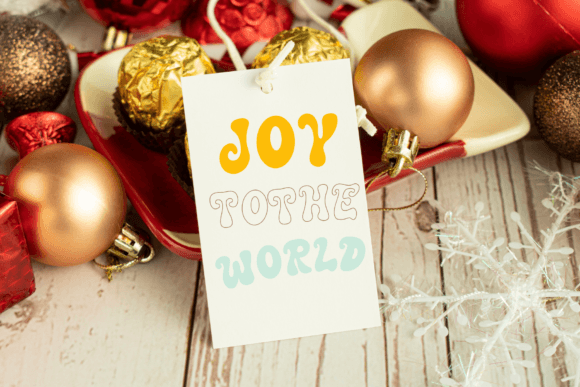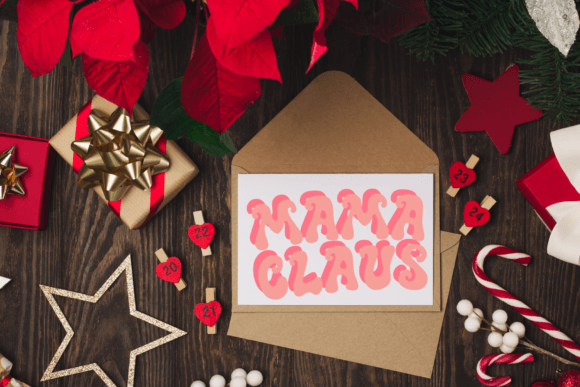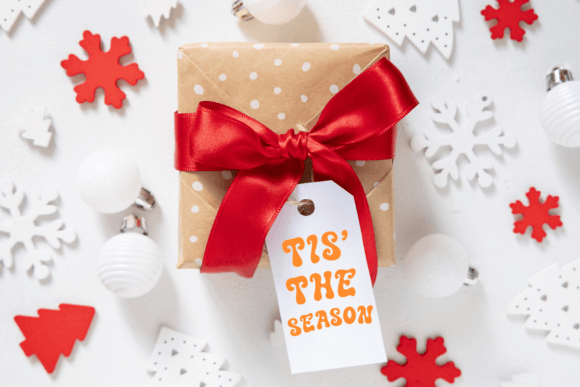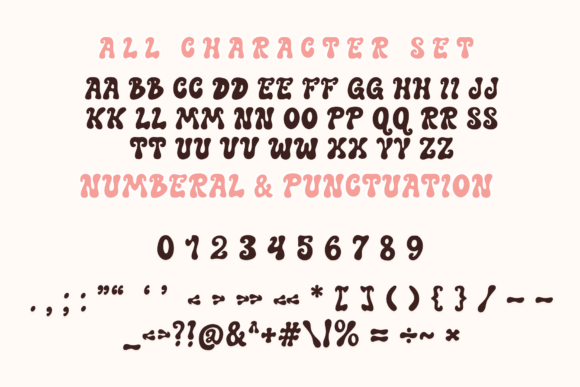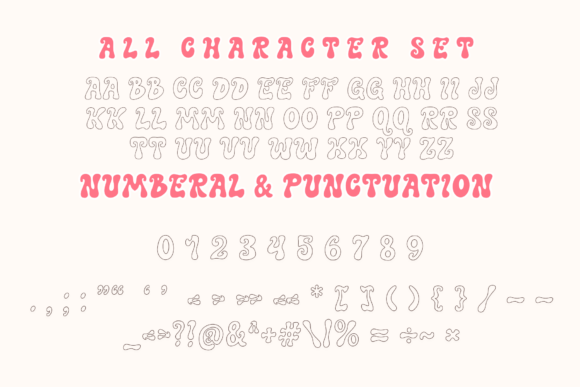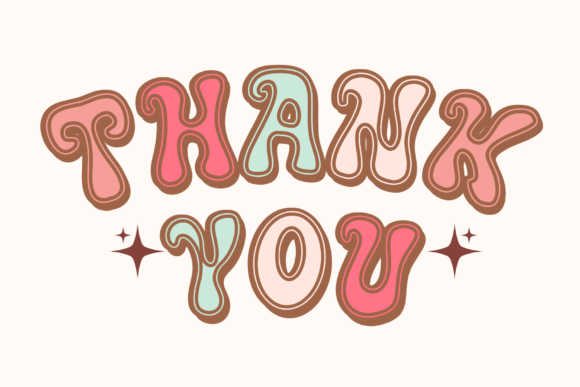
Introducing Christmas Bubble Font: The Ultimate Retro Christmas Font Duo
Are you looking for a font that captures the essence of Christmas and adds a touch of playfulness to your designs? Look no further than Christmas Bubble Font! This retro Christmas font duo is the perfect choice for designers and crafters who want to add a dash of authenticity and fun to their projects.
What is Christmas Bubble Font?
Christmas Bubble Font is a unique and festive font duo that embodies the spirit of Christmas. With its retro vibe and playful design, this font is sure to make your projects stand out. Whether you’re working on a blog post, logo, branding, ad, invitation, greeting card, planner, photo album, or decoration, Christmas Bubble Font is the perfect choice.
Key Features of Christmas Bubble Font
- Retro Design: Christmas Bubble Font has a classic, retro design that is reminiscent of Christmas decorations and advertisements from the past.
- Playful and Authentic: This font duo embodies playfulness and authenticity, making it perfect for projects that require a touch of fun and personality.
- Versatile: Christmas Bubble Font can be used for a wide range of projects, from digital designs to print materials.
Uses for Christmas Bubble Font
Christmas Bubble Font is perfect for a wide range of projects, including:
- Blog Posts: Add a touch of Christmas cheer to your blog posts with this festive font.
- Logos and Branding: Create a unique and memorable logo for your business or brand with Christmas Bubble Font.
- Ads and Marketing Materials: Make your ads and marketing materials stand out with this eye-catching font.
- Invitations and Greeting Cards: Create festive and fun invitations and greeting cards for your loved ones.
- Planners and Photo Albums: Add a touch of personality to your planners and photo albums with Christmas Bubble Font.
- Decorations: Use this font to create festive decorations, such as garlands, banners, and signs.
Why Choose Christmas Bubble Font?
There are many reasons why Christmas Bubble Font is the perfect choice for your Christmas projects:
- Unique Design: This font has a unique and retro design that will make your projects stand out.
- Versatile: This font can be used for a wide range of projects, from digital designs to print materials.
Tips for Using Christmas Bubble Font
Here are a few tips for using Christmas Bubble Font:
- Use it Sparingly: Use Christmas Bubble Font sparingly to add a touch of festivity to your projects.
- Experiment with Colors: Experiment with different colors to find the perfect combination for your project.
- Pair it with Other Fonts: Pair Christmas Bubble Font with other fonts to create a unique and interesting design.